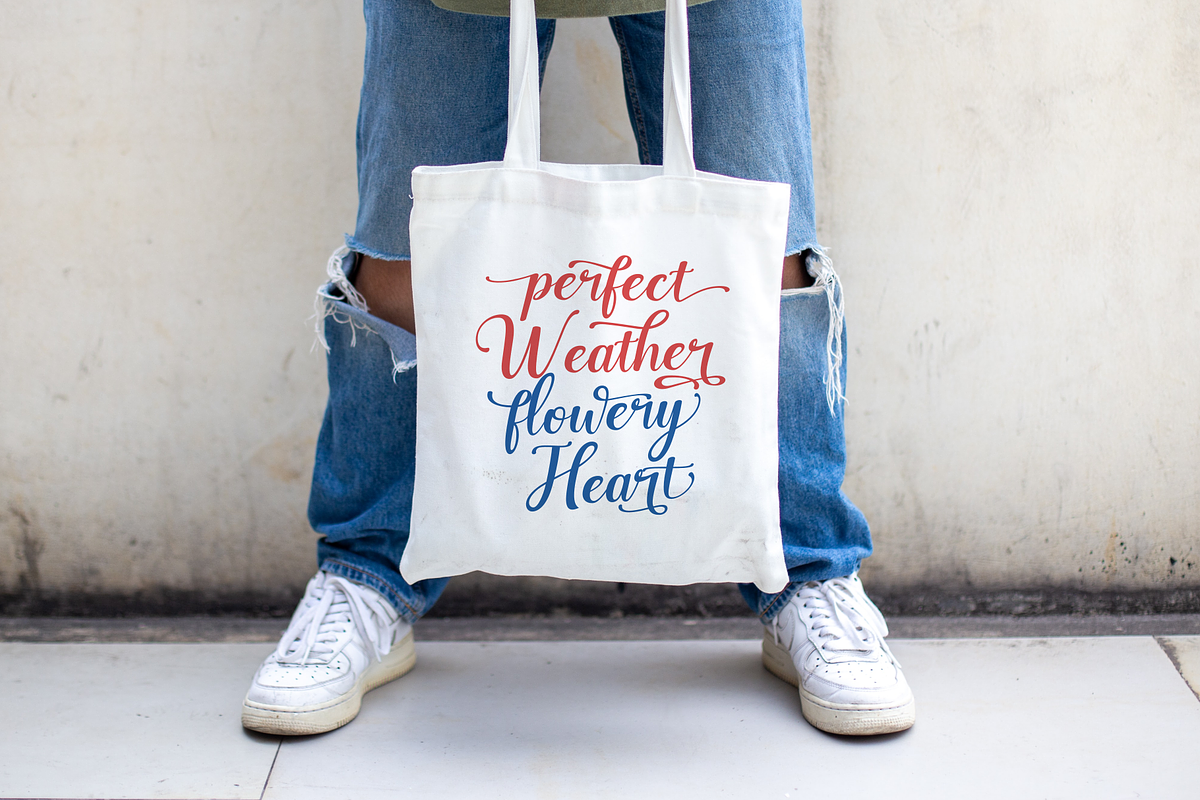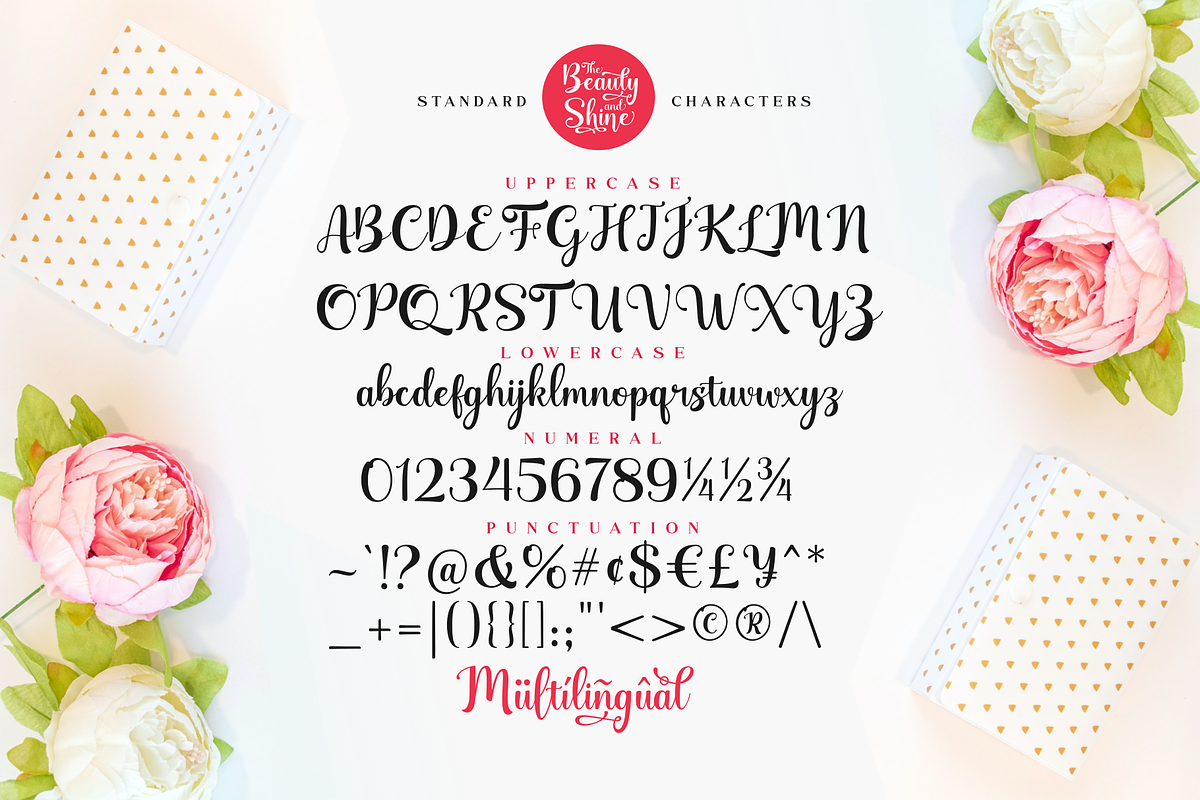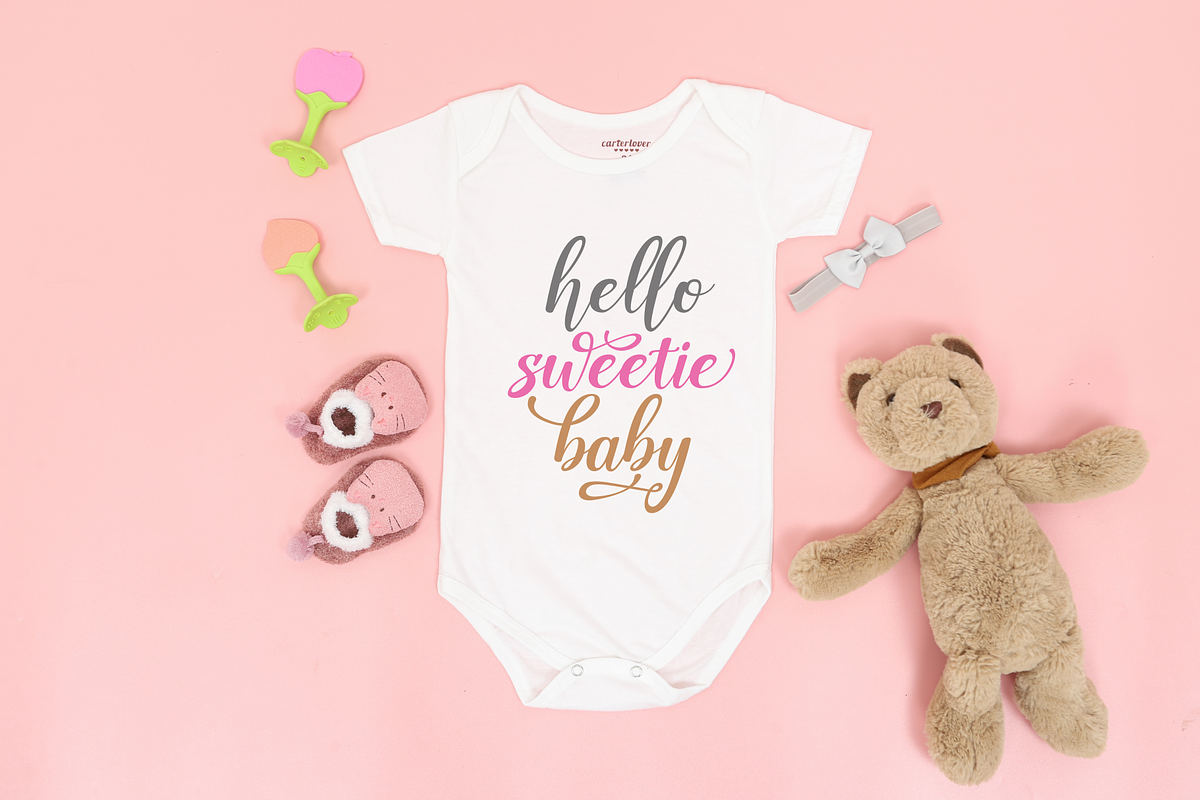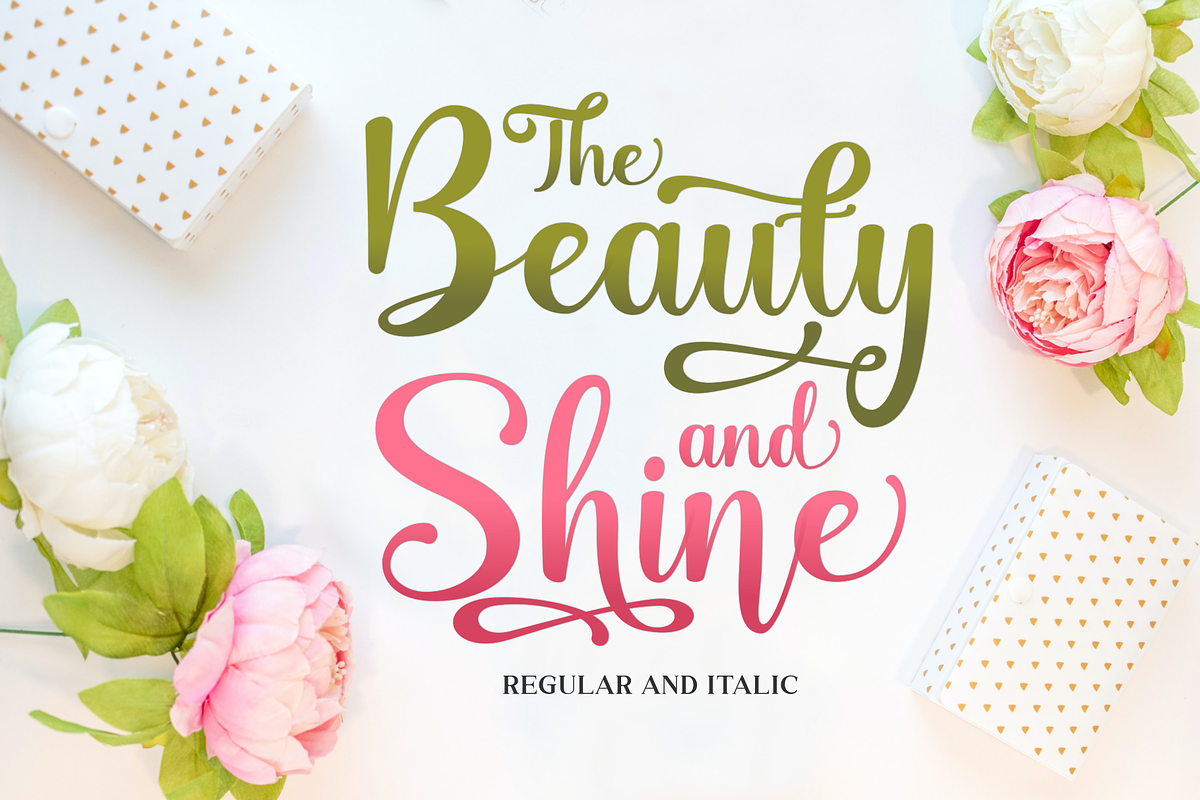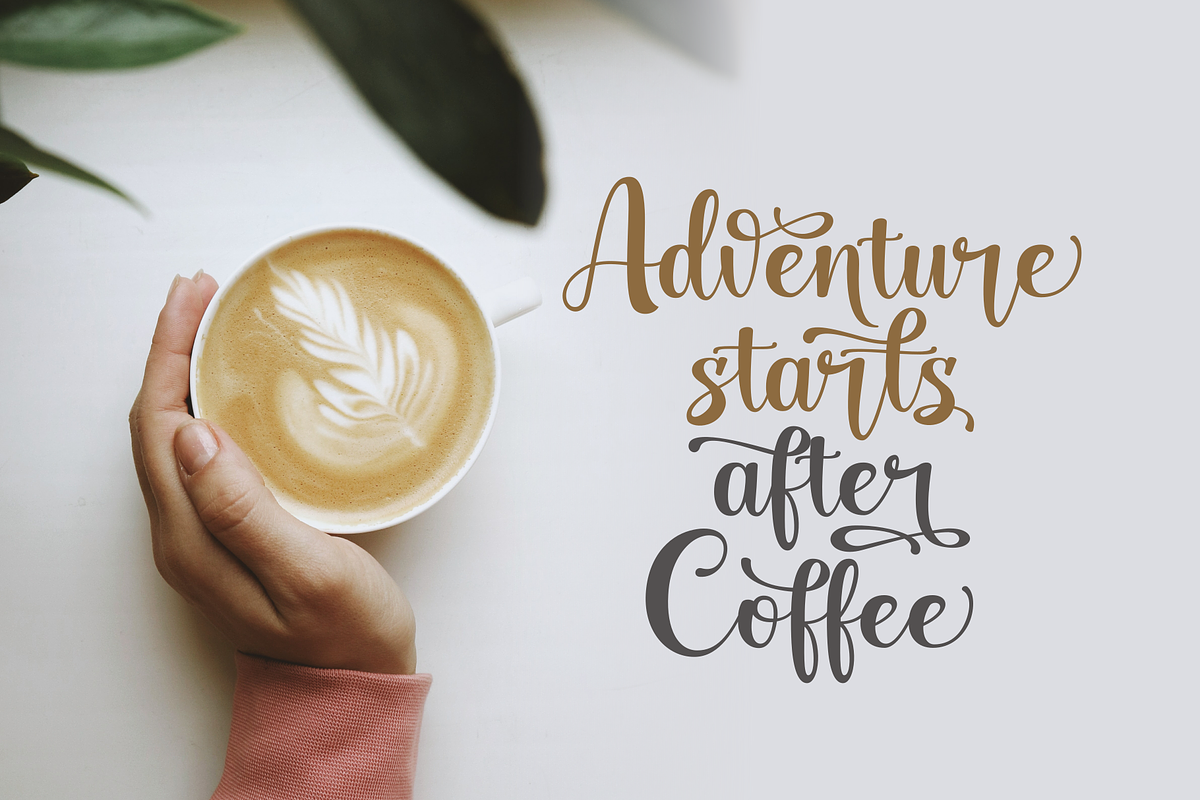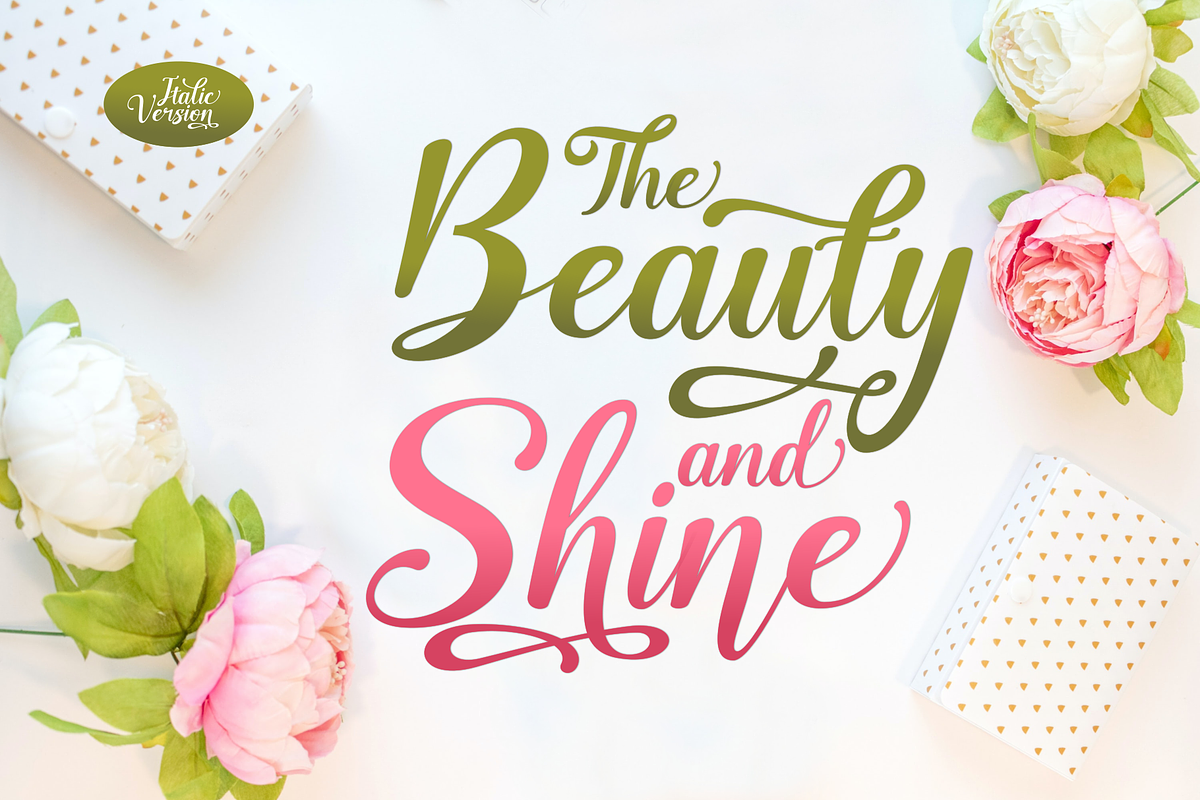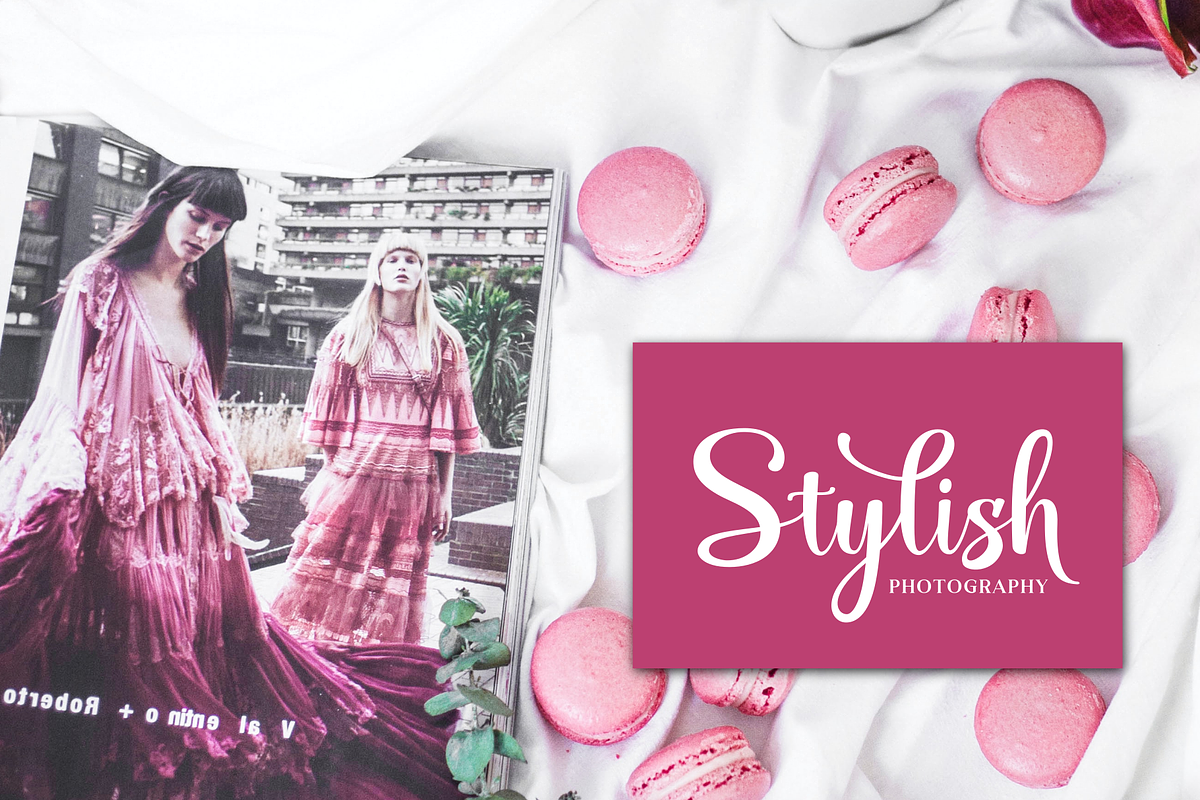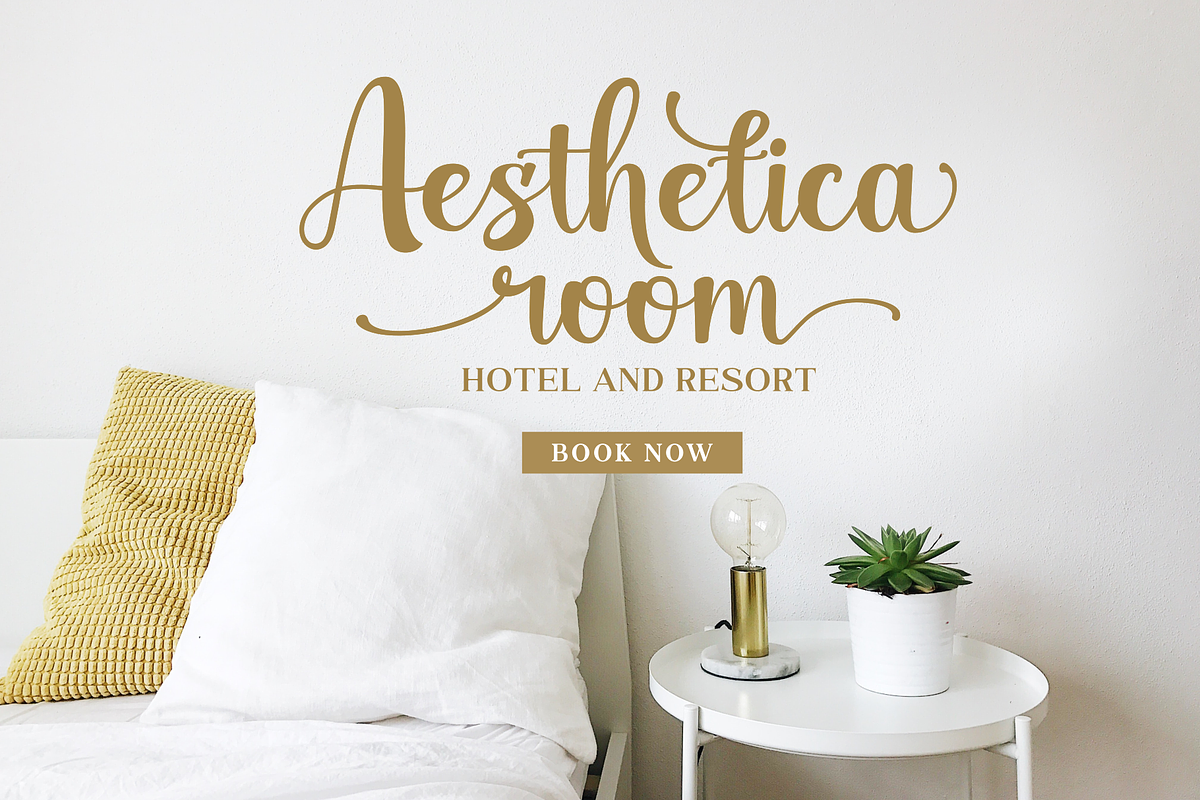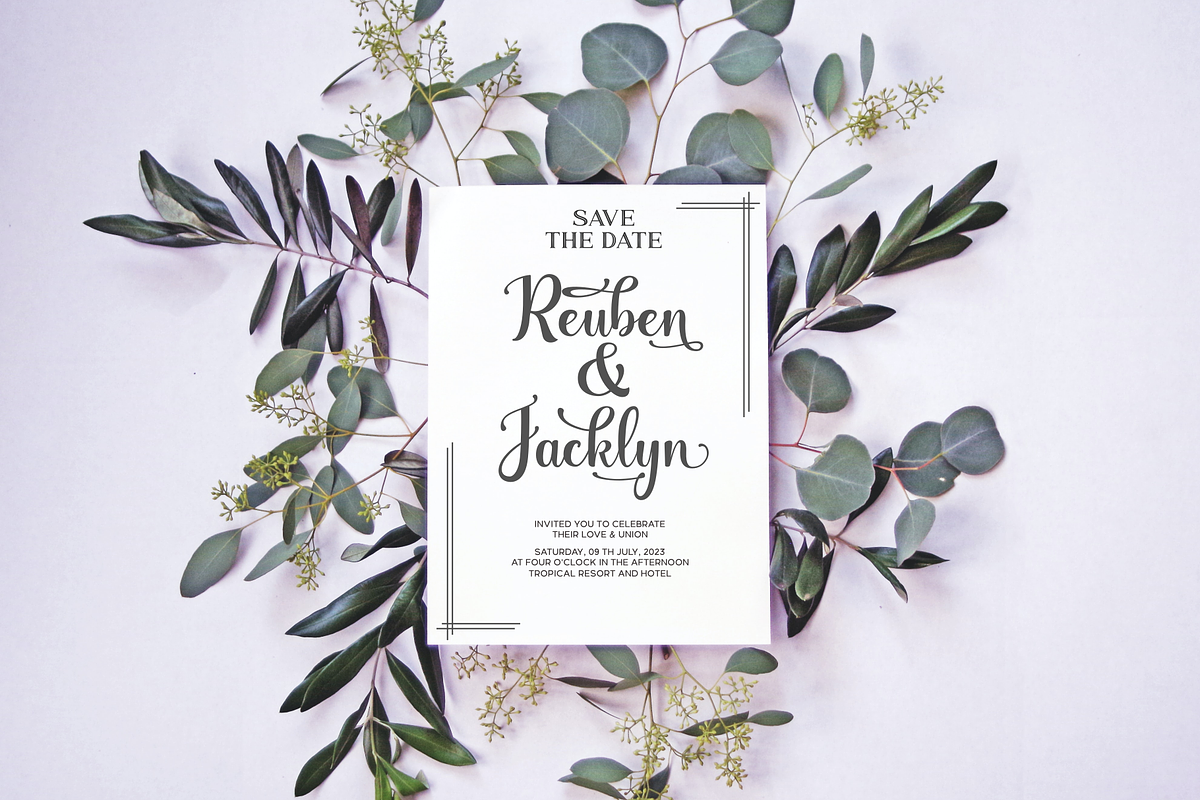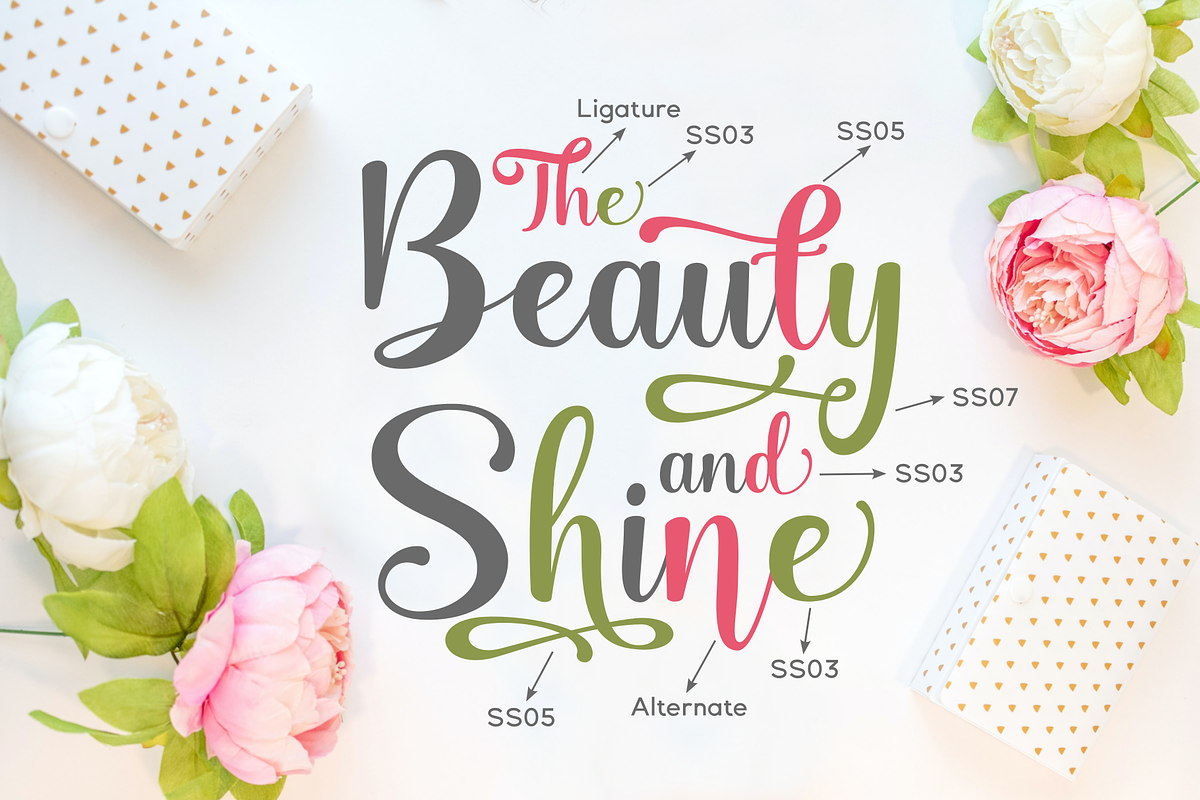
Beauty & Shine / Pretty Script
Introducing a pretty script font that comes with two styles regular and italic, As the name Beauty & Shine is a pretty calligraphy font that has a lot of alternate characters to switch it for more stunning and outstanding looks. Beauty & Shine aslo can switching into italic style based on you need or mix and match with regular style . This font is perfect for quotes, logo, branding, invitations, apparel, prints, wall decor, cricut projects, and etc.
- Opentype features